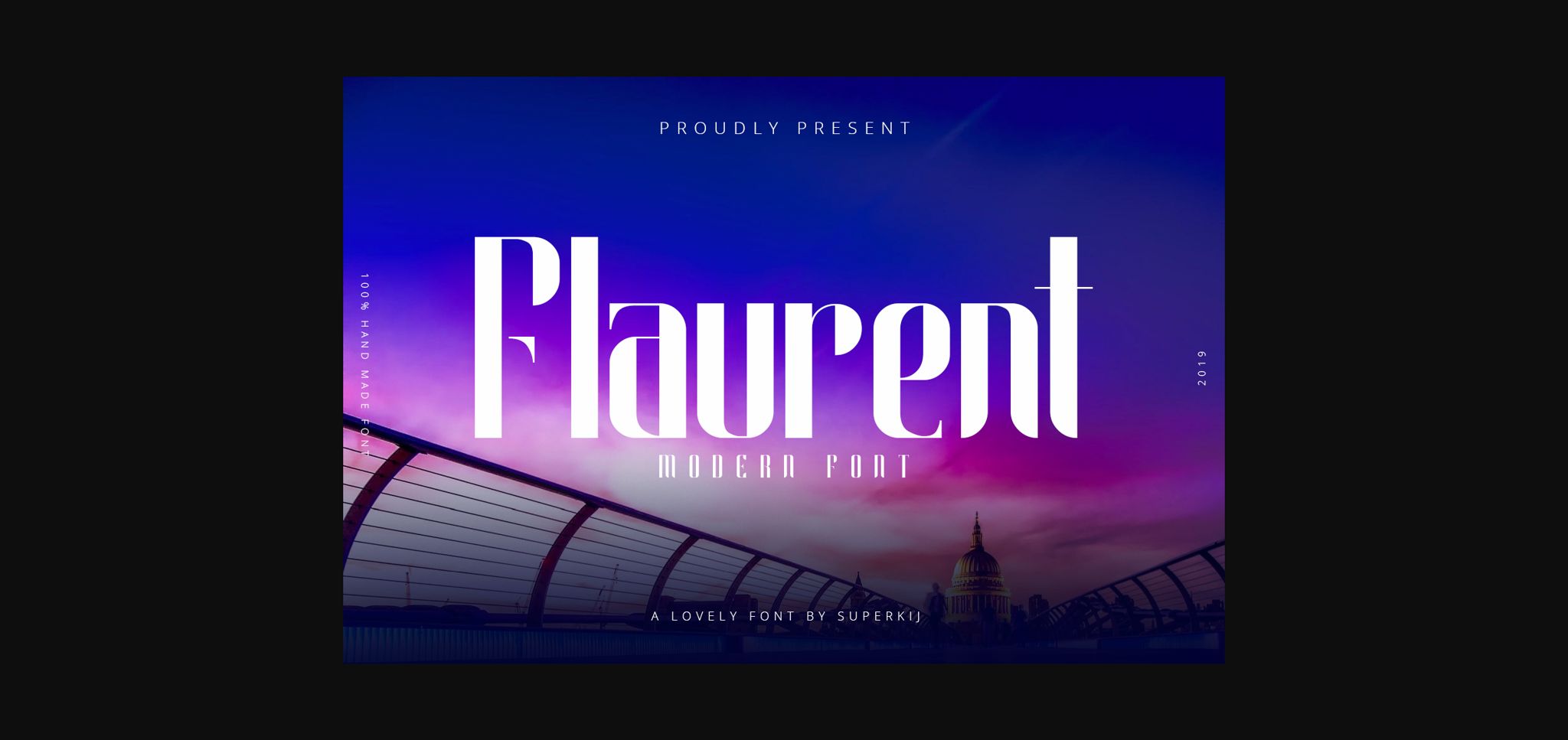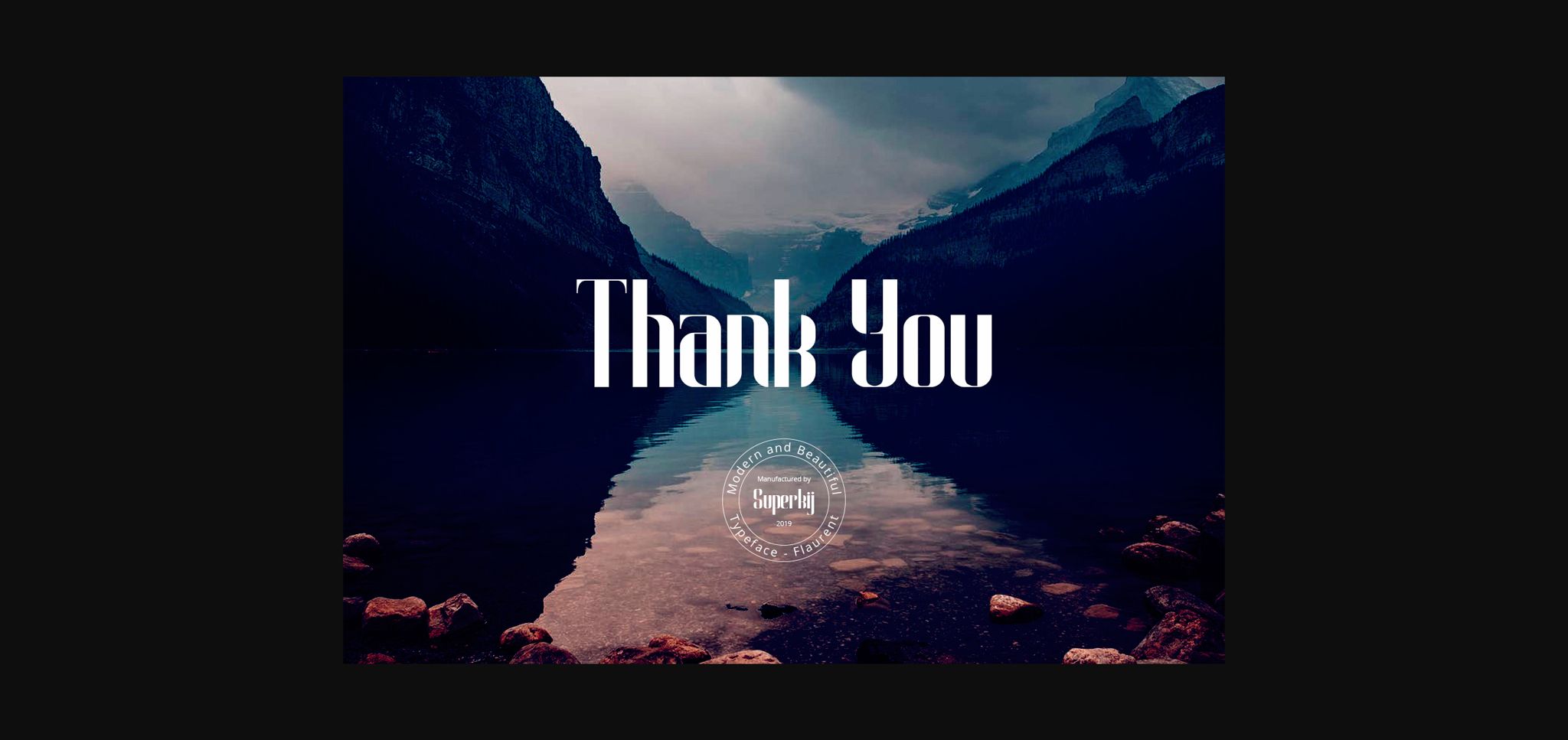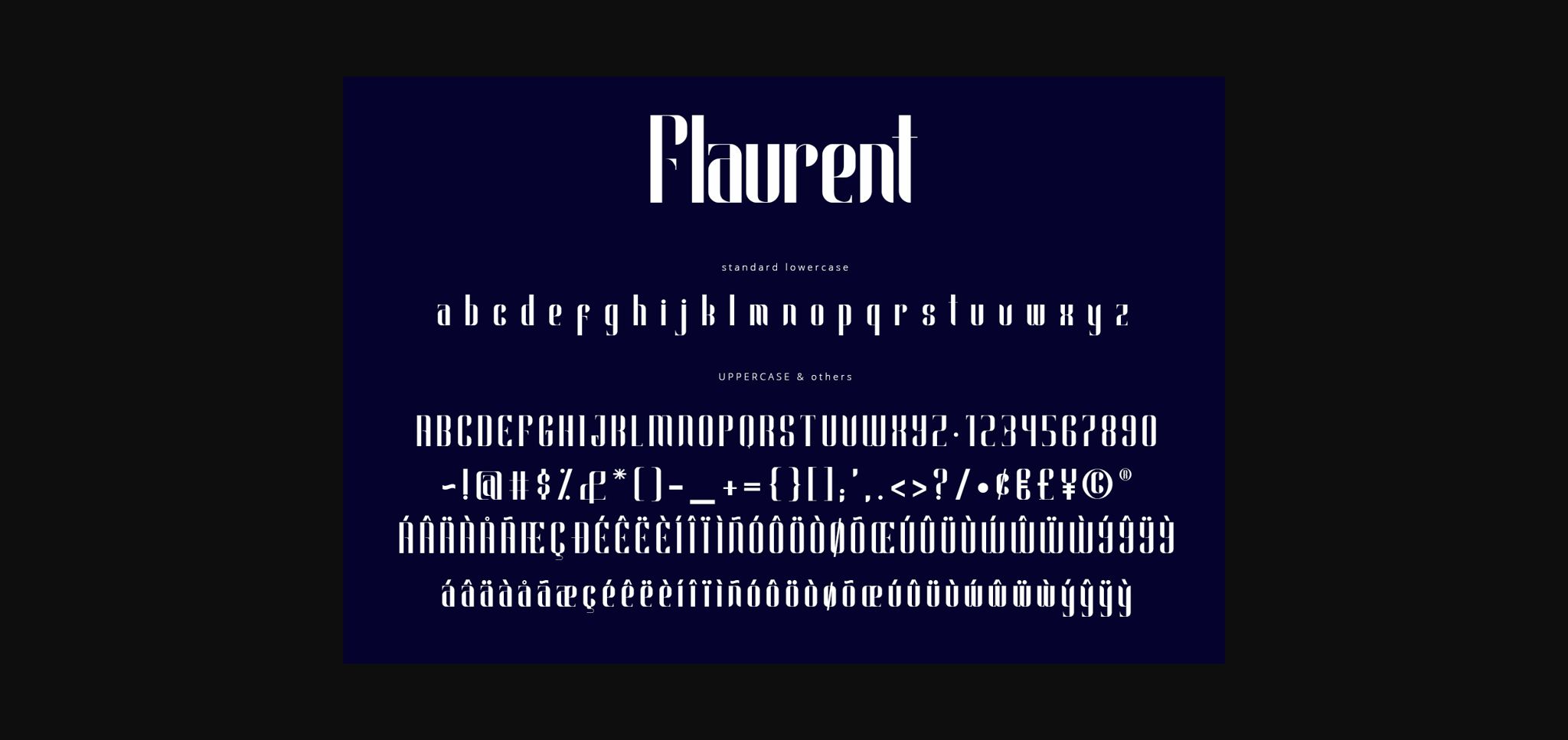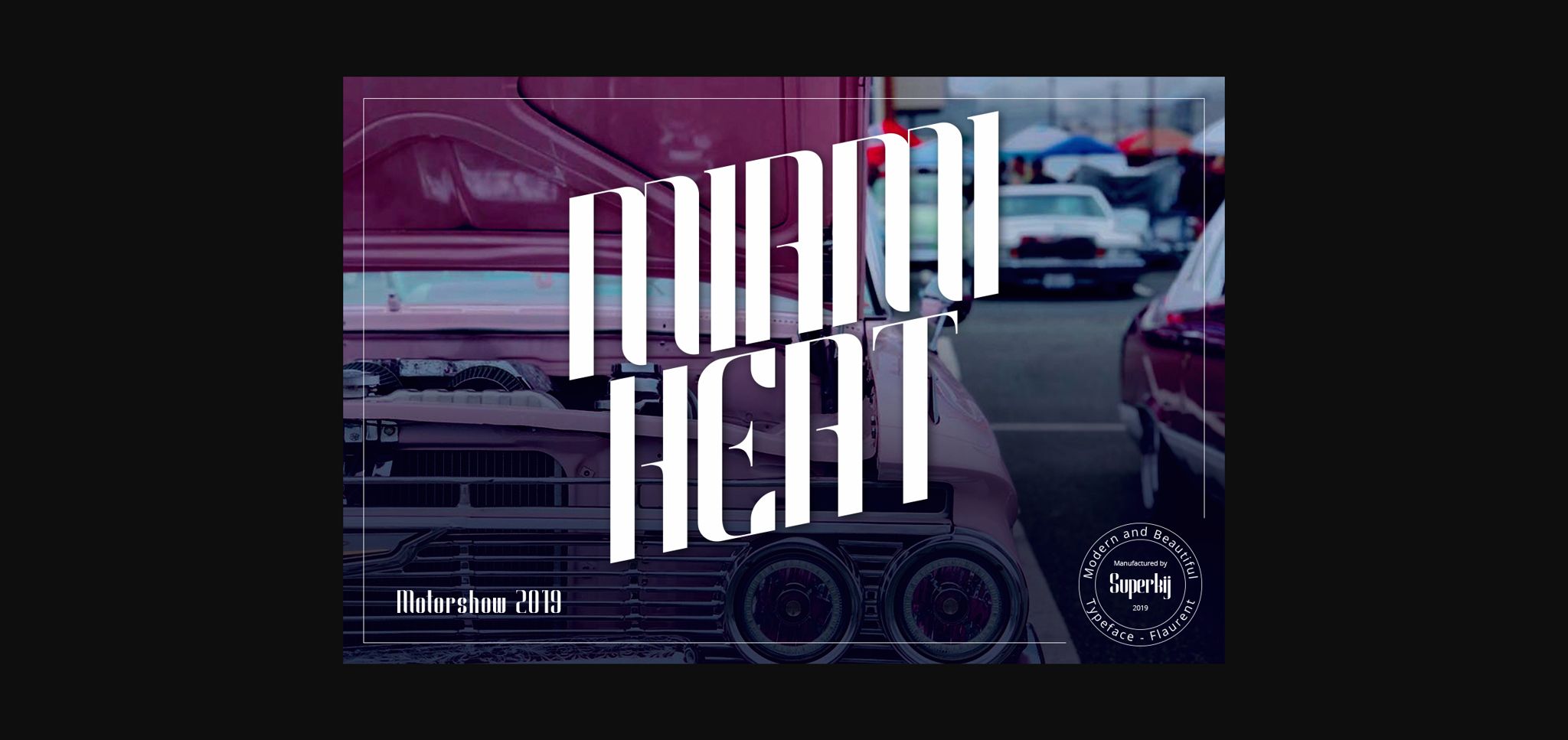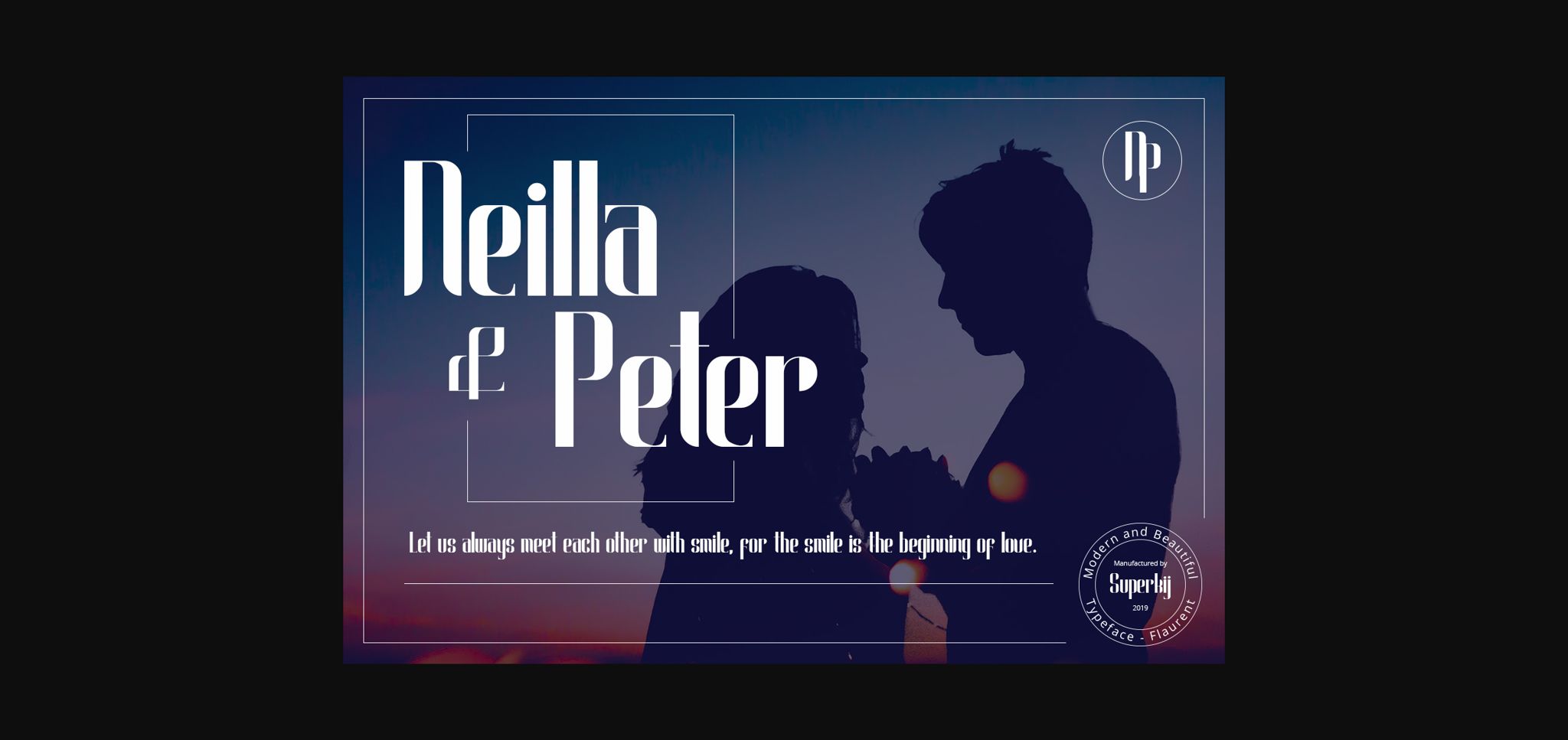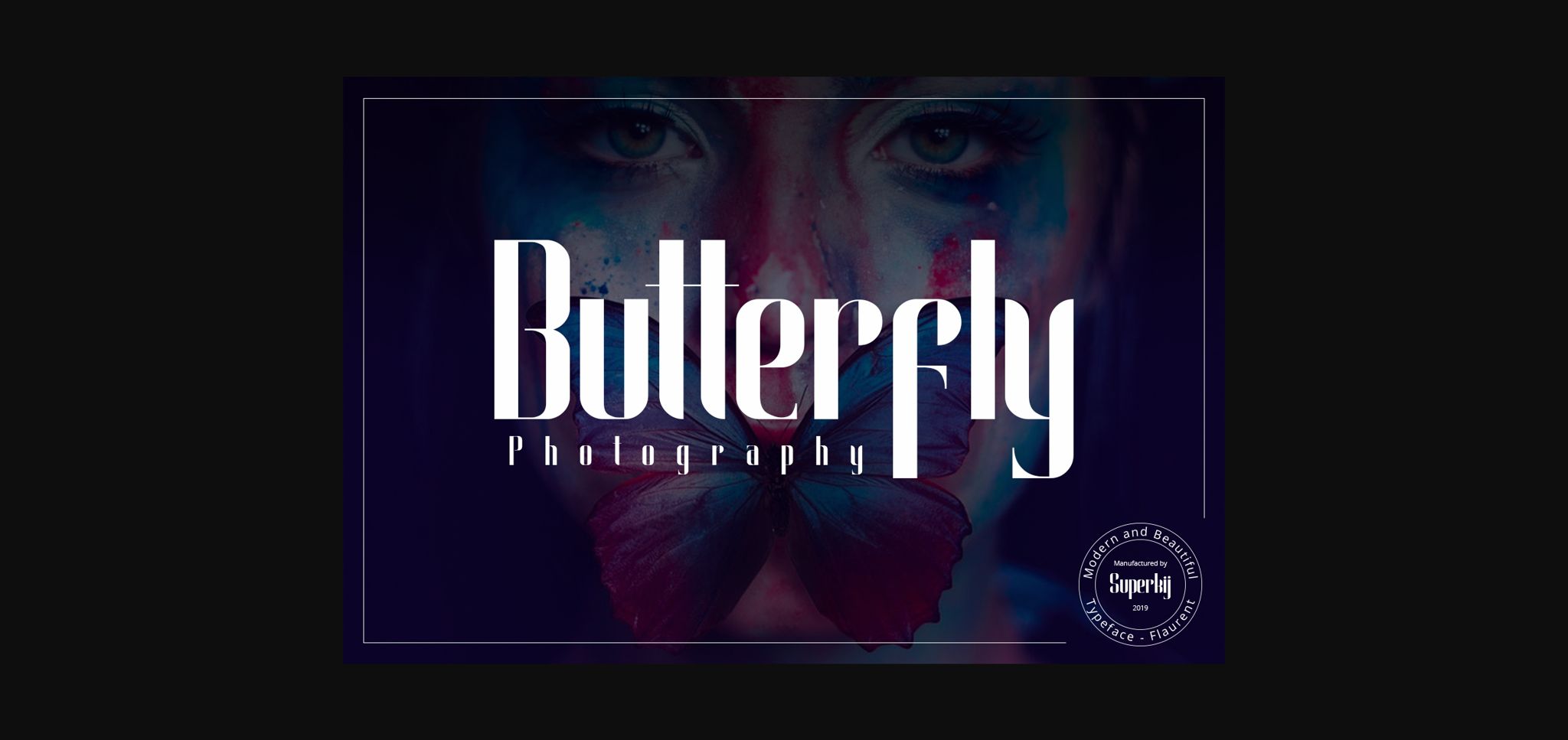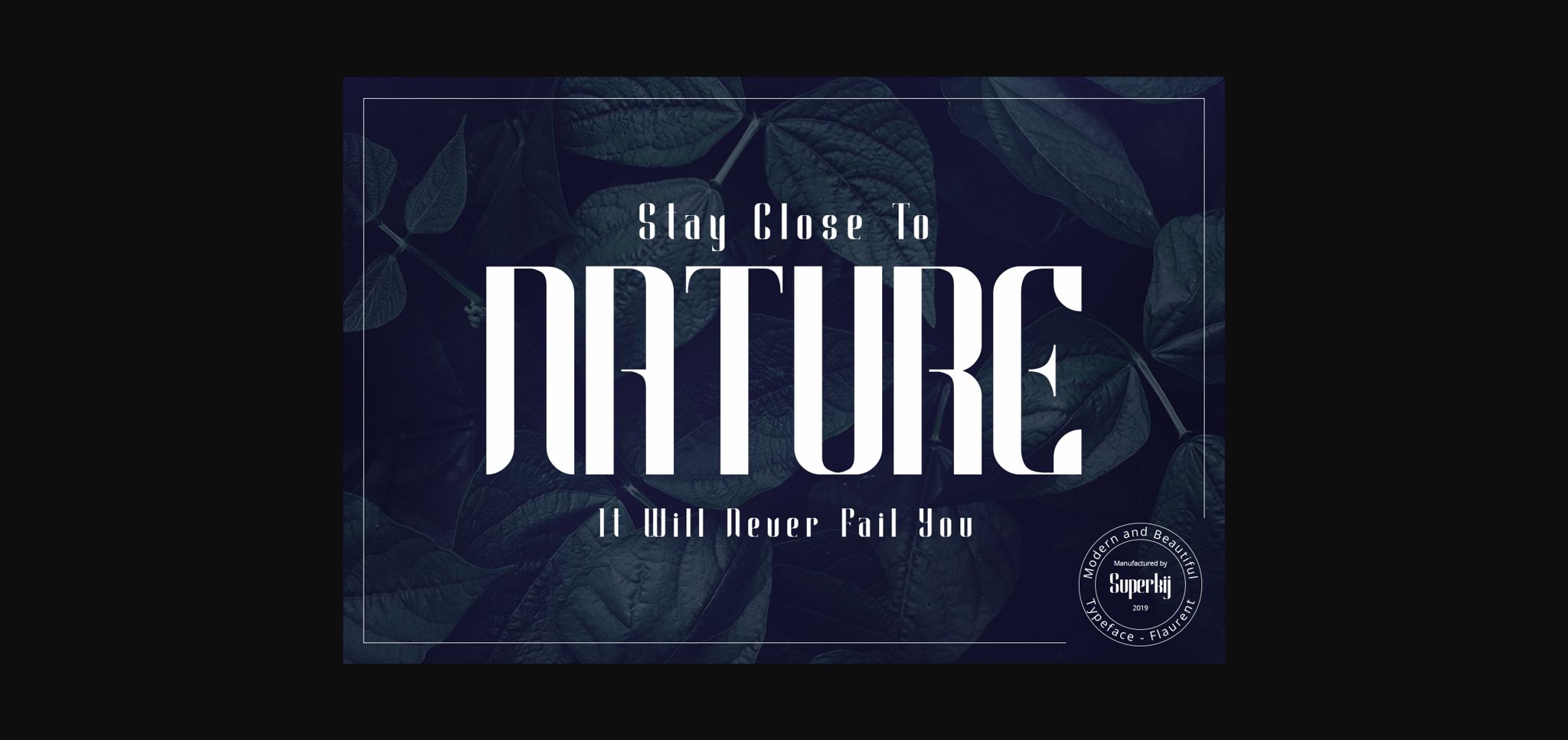
HomeSans Serif FontsFlaurent Font Sans Serif Fonts Flaurent Font FacebookTwitterPinterestWhatsApp 1 of 9 ... Flaurent Font Poster 2... Flaurent Font Poster 3... Flaurent Font Poster 4... Flaurent Font Poster 5... Flaurent Font Poster 6... Flaurent Font Poster 7... Flaurent Font Poster 8... Flaurent Font Poster 9... About Flaurent Font Flaurent is a strong and unique sans serif font with a stylish feel. It will add an editorial feel to a big variety of design ideas. DOWNLOAD NOW People also explored Saturday Blithe Font Fidelle Gambhira Font Letticia Font Jusy Font Peace Place Font Modern Script Font Nutrlein Font 180 0 TagsFlaurent Font Previous articleVikor FontNext articleEasy 4 Font LEAVE A REPLY Cancel reply Comment: Please enter your comment! Name:* Please enter your name here Email:* You have entered an incorrect email address! Please enter your email address here Website: Save my name, email, and website in this browser for the next time I comment. Personal Use Free Yukarimobile Personal Use Free Read more about this font Zojihun Personal Use Free Read more about this font Peachy Rose Personal Use Free Read more about this font Aline Personal Use Free Read more about this font BLOG The 10 Best Handwriting Fonts to Add Personality to Your Designs 10 of the Best Handwriting Fonts for Adding Personality to Your Designs There will undoubtedly be no other better choice than handwriting fonts to give... Free Fonts Risk: Why Free Fonts Can Be Dangerous for Designers Where to Buy American Fonts Online in 2024 Top 7 Google Fonts Alternatives for Faster and Privacy-Friendly Web Design (2025)